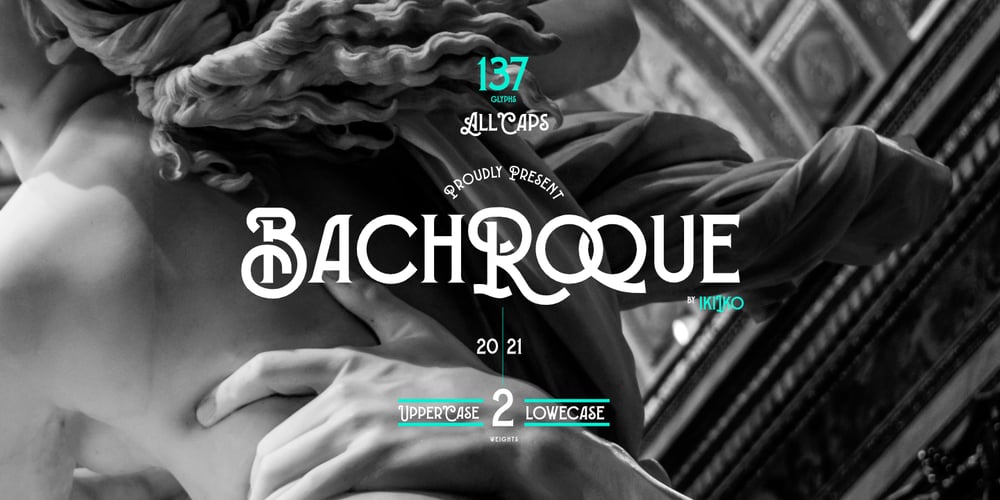
Bachroque
Bachroque font
Bachroque Font Family was designed by Andhika Pradana and published by IKIIKOWRK. Bachroque contains 1 styles and family package options. Proudly present Bachroque Typeface, created by ikiiko.A classy stylish font inspired on baroque era meet modern look. A good combination to create display page or layout with strong style. This font have unique gesture for your brand logo, poster, book cover, t-shirt, label, magazine, header/ headline and another project to a have bold and unique classy look.What’s Included? Uppercase & Lowercase Numbers & Punctuation (Bonus Ligature) Multilingual Support Format File : TTF & OTF Works on PC & Mac Get also a good offer & FREEBIE at our site : www.ikiiko.comEnjoy our font and if you have any questions, you can contact us by email : ikiikowrk@gmail.com